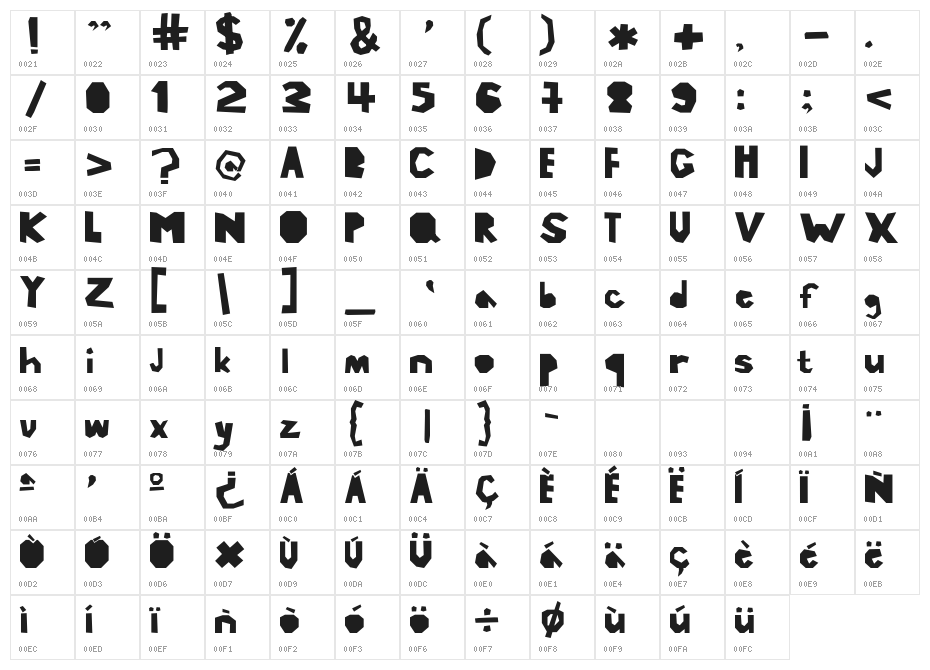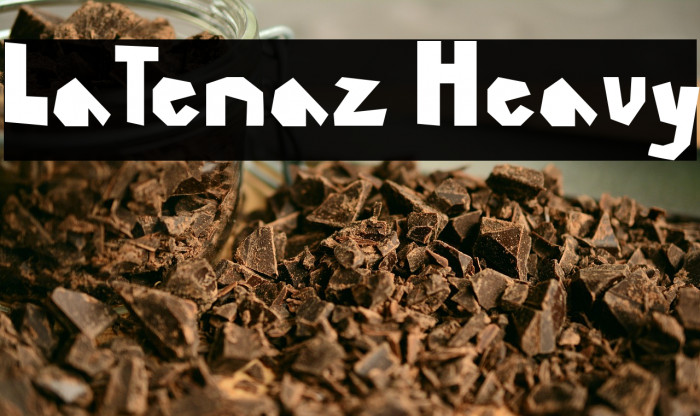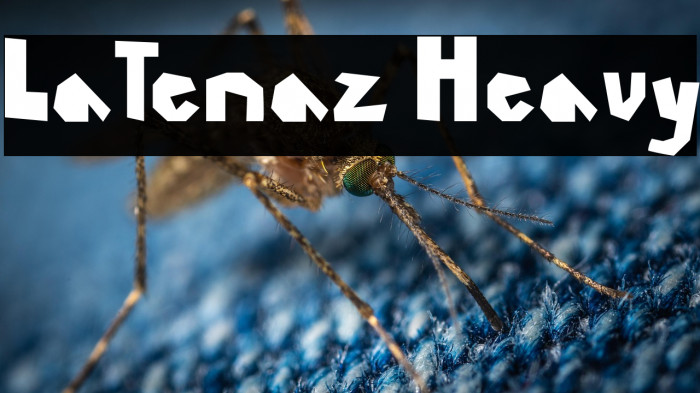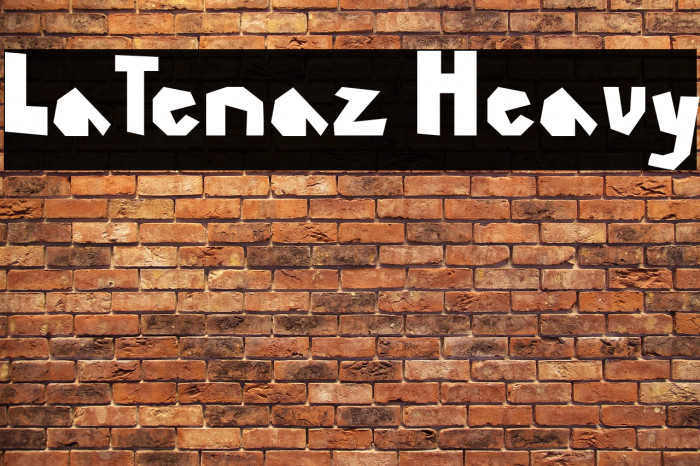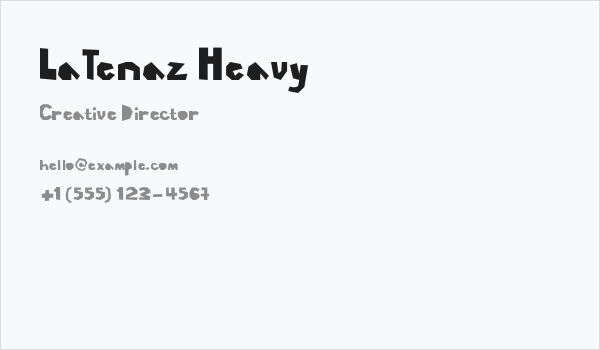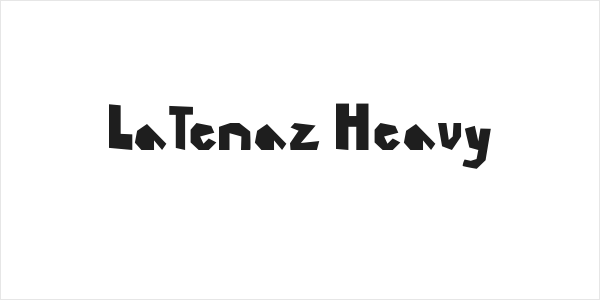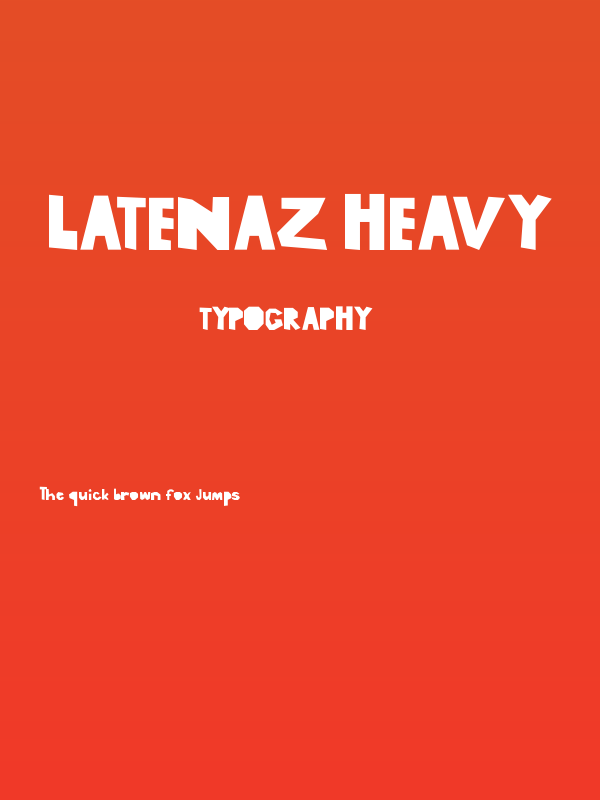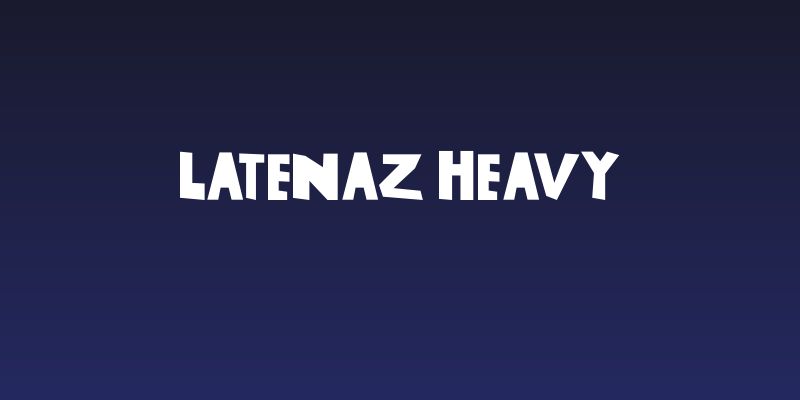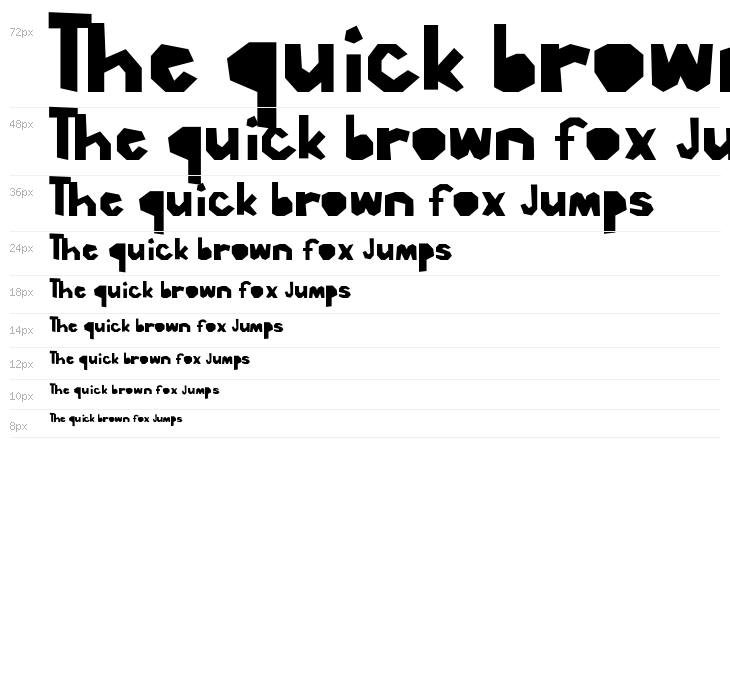
LaTenaz Heavy Font
LaTenaz Heavy Description
This font features a bold and striking design with angular, geometric shapes that create a sense of movement and energy. The uppercase and lowercase letters are crafted with sharp edges and varying line thicknesses, giving the font a dynamic and edgy appearance. The numbers and special characters maintain this bold aesthetic, making them stand out prominently. The overall style is modern and unconventional, suitable for projects that require a strong visual impact.
| Proposed Projects | Ideal for posters, album covers, branding, and any project needing a bold statement. |